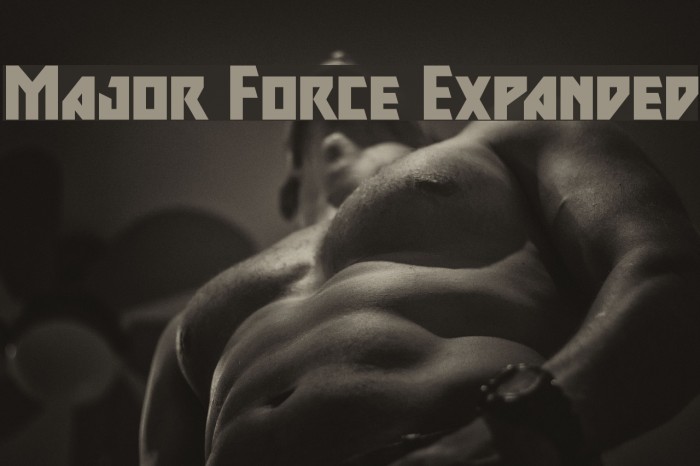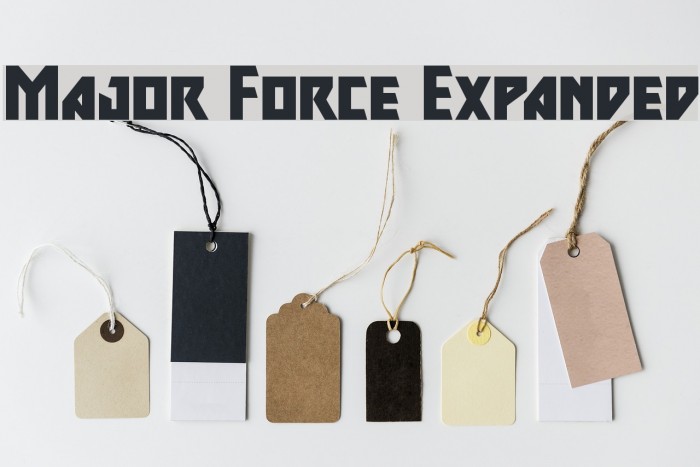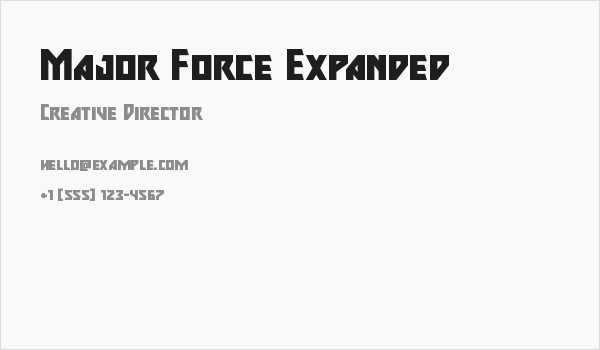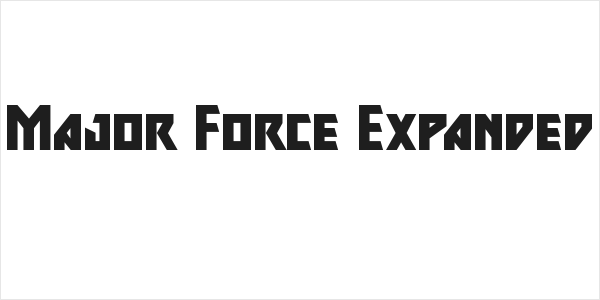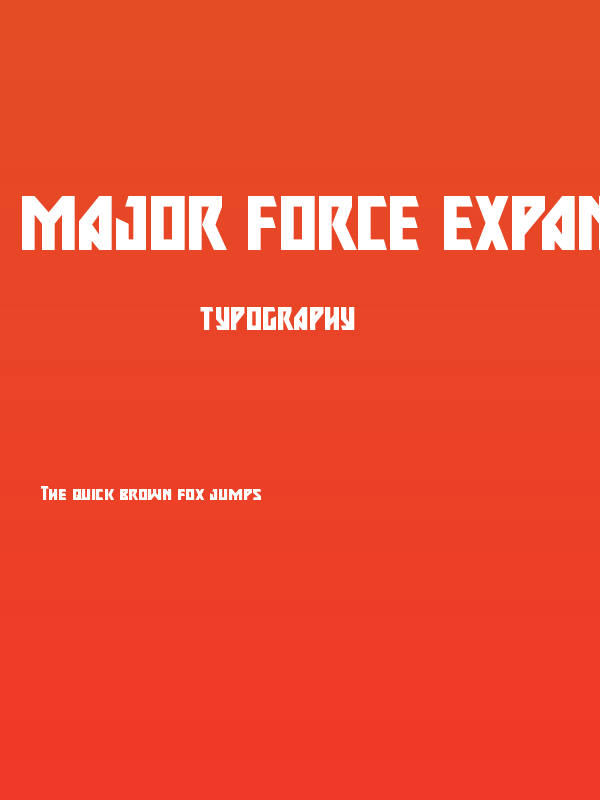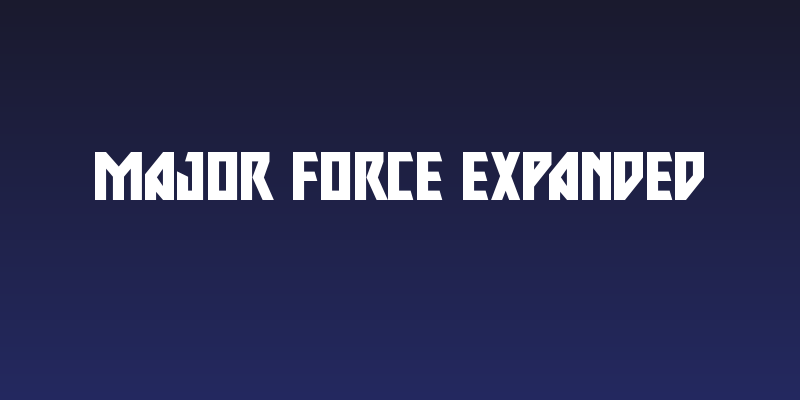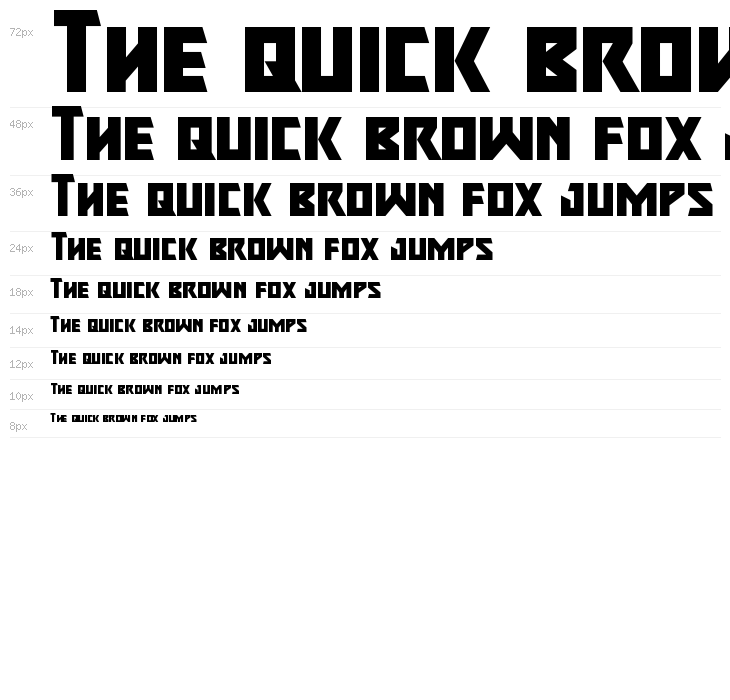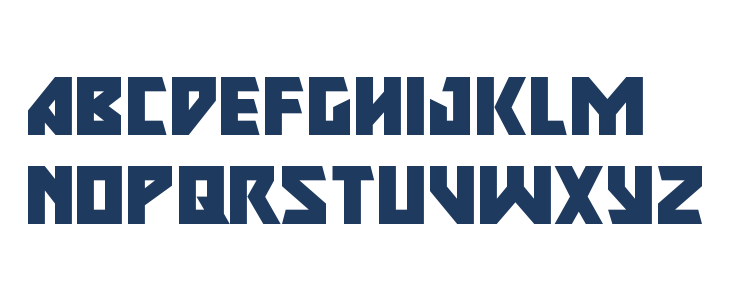
Major Force Expanded Font
Major Force Expanded Description
This font features a bold and angular design with a strong geometric influence. The characters are crafted with sharp edges and a block-like structure, giving it a futuristic and powerful appearance. The uppercase and lowercase letters maintain a consistent width, contributing to a uniform and cohesive look. The numerals and special characters follow the same design principles, ensuring a seamless integration across different text elements. The overall style is highly distinctive, making it ideal for projects that require a commanding and modern aesthetic.
| Proposed Projects | Ideal for branding, posters, video game titles, and any project needing a strong, modern look. |